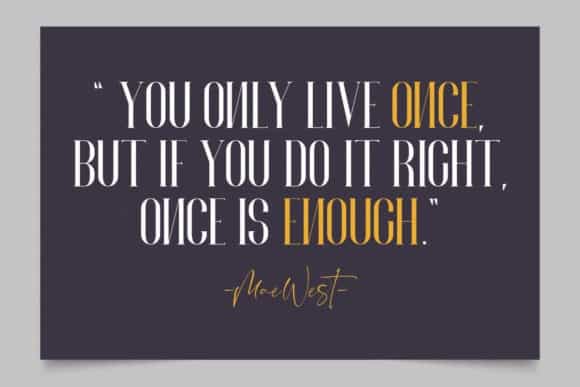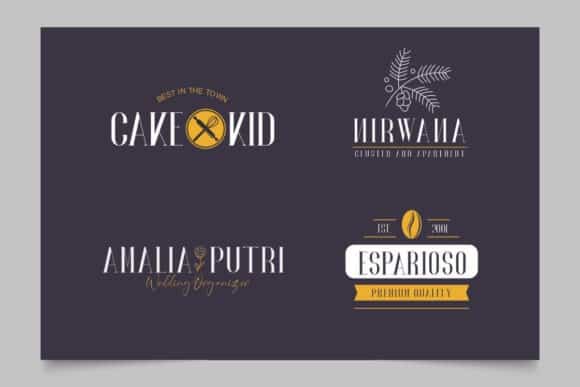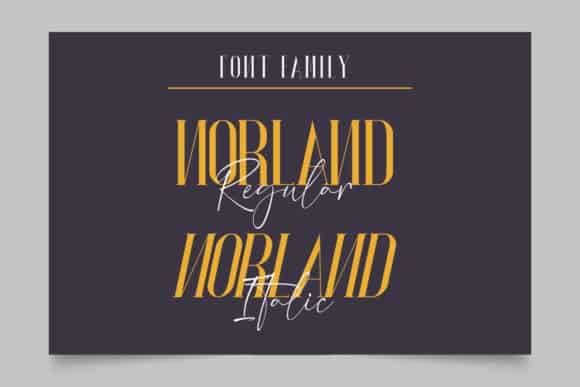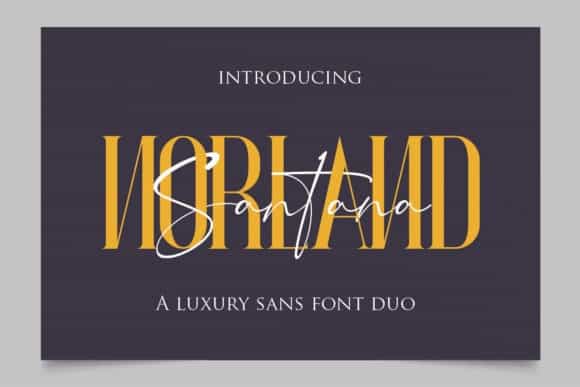
A script and serif pairing duo called Norland Serif Font. It very suitable to your happy mood and stunning project, and maybe you love to use it on social media like Instagram or others. This typeface is designed and shared by Gilar Studio. Incredibly versatile, this font fits a wide pool of designs, elevating them to the highest levels. Add this font to your favorite creative ideas and notice how it makes them come alive!